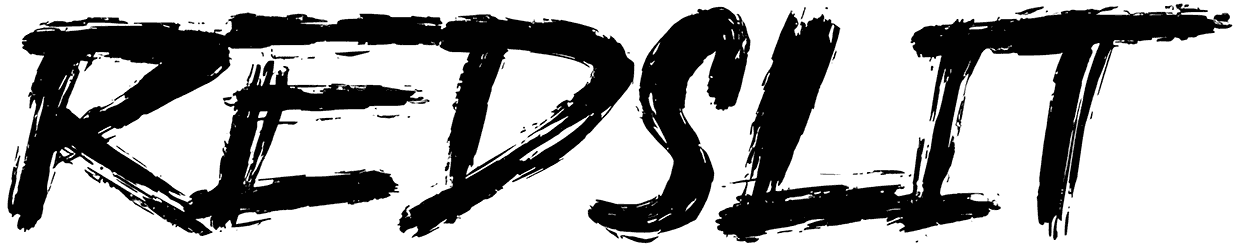
Redslit Font
If your design needs a touch of modern and natural mood, this brush font has the potential to provide such a visual. Characters are all available and they convey a casual and urban vibe. As a unique script font, the Redslit font is a perfect selection for varied layouts such as a beach café sign, a skateboard design, or whatnot.